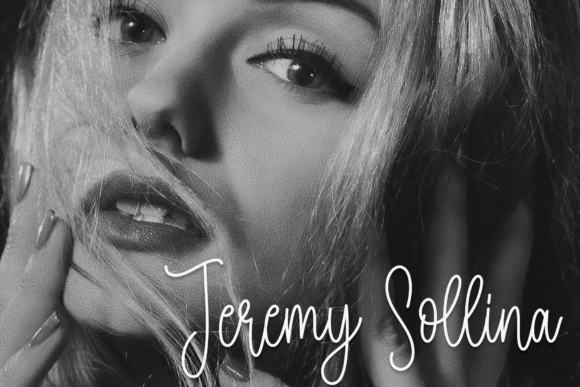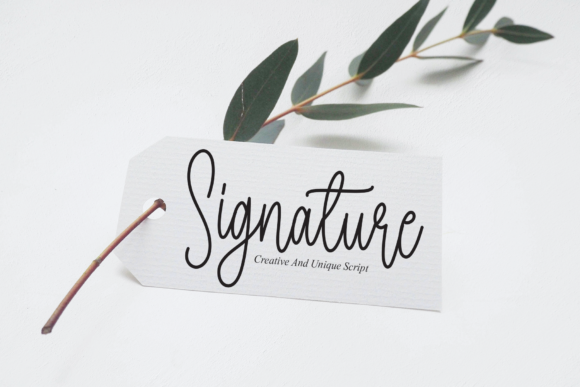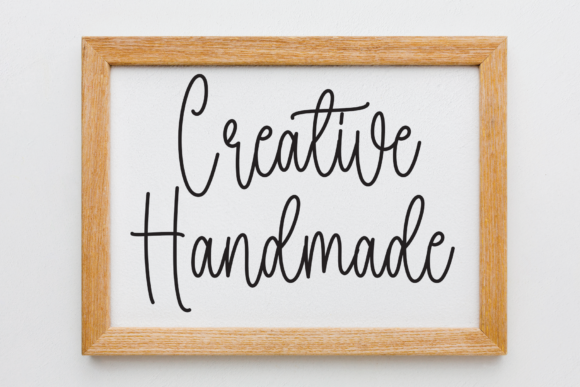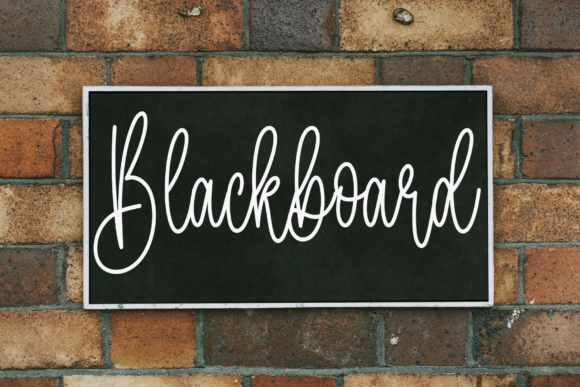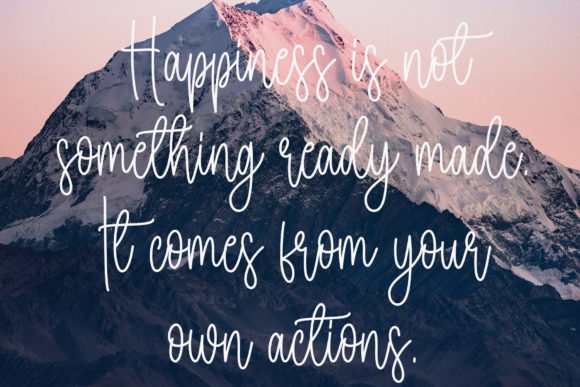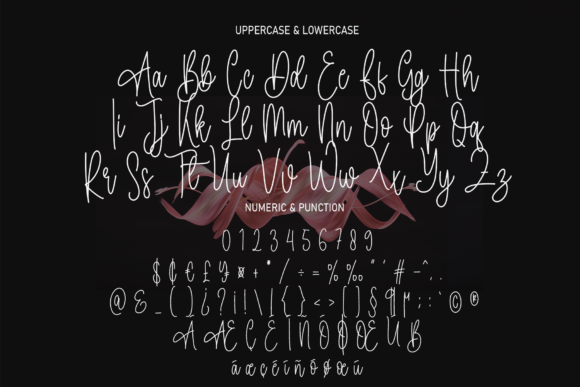
Unleashing the Art of Handwritten Typography
As a designer, have you ever stared at a blank page, trying to convey the perfect message to your audience? Perhaps you’ve spent hours crafting the perfect phrase, only to realize that something was missing – a touch of personality, a dash of whimsy, or a hint of handcrafted charm. That’s where the Autography Font comes in – a game-changing typography style that captures the essence of handwritten letters, perfect for adding a personal touch to your designs.
Whether you’re a seasoned designer or just starting out, the Autography Font is an invaluable asset in your creative arsenal. With its unique blend of elegance and playfulness, this font is ideal for a wide range of projects, from wall displays and wedding invitations to social media logos and product packaging. By incorporating the Autography Font into your designs, you’ll be able to evoke emotions, create connections, and leave a lasting impression on your audience.
Autography Font Key Features
- Unique Characteristics: Autography Font features a distinctive, handwritten style with subtle variations in letterform and spacing, giving it a personal and expressive feel.
- Kerning and Ligatures: Autography Font includes carefully designed kerning and ligatures to enhance readability and visual appeal.
Autography Font Review
Overall, I think Autography Font is a solid addition to any designer’s toolkit. Here are some things that really work well:
- ✨ Elegant and refined aesthetic: Autography Font has a beautiful, handwritten feel that’s perfect for adding a touch of sophistication to any project.
- ✨ High-quality fonts: The font is well-crafted and easy to read, even at smaller sizes.
- ✨ Versatile: Autography Font comes in a range of weights and styles, making it suitable for a variety of applications, from body text to headlines.
However, there are a few limitations to be aware of:
- ⚠️ Limited language support: Autography Font only includes Latin script support, which may be a problem for designers working with non-Latin languages.
- ⚠️ No bold italic weights: While the font includes a range of weights and styles, it’s missing bold italic weights, which can be a limitation for designers who need to emphasize text.
Overall, I’d say Autography Font is a great choice for designers who need a high-quality, elegant font for their projects. While it’s not perfect, its strengths outweigh its weaknesses, and it’s definitely worth considering for any design project that requires a refined, handwritten feel.
Tips for Getting the Most Out of Autography Font
Use Autography Font to create unique and personalized designs, such as:
- Wedding invitations
- Personalized cards and gifts
- Custom logos and branding
Remember to experiment with different font sizes, colors, and styles to achieve the desired effect.
Autography Font is commonly used for:
- Wedding stationery
- Personalized gift tags
- Custom signage
Its unique and elegant style makes it perfect for special occasions and events.
Alternatives to Autography Font for Designers
Autography Font is a beautiful script font, but sometimes it may not be the perfect fit for every project. Here are some alternatives that designers can consider:
Pacifico is a modern script font that is perfect for creating a relaxed and casual atmosphere. It’s ideal for use in branding, packaging, and advertising materials. Compared to Autography Font, Pacifico has a more subtle and elegant feel, making it a great choice for projects where you want to convey sophistication and refinement.